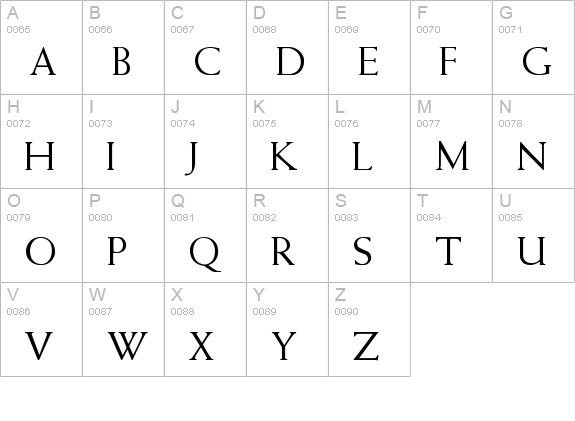
QTWeise Regular is the standard, neutral variant in the QTWeise typeface family \xE2\x80\x94 well suited to general body text, paragraphs, and standard typographic work.
QTWeise Regular is a versatile and stylish font that adds a touch of elegance to any design project. With its clean lines and balanced proportions, this font is perfect for both headings and body text. The sleek and modern look of QTWeise Regular makes it suitable for a wide range of applications, from branding and advertising to web design and print materials. What sets QTWeise Regular apart is its accessibility - it is available for free download at FontsMarket.com. This means that designers and creatives can easily access this high-quality font without having to worry about any additional costs. The freedom to use QTWeise Regular in personal and commercial projects without any restrictions makes it an invaluable resource for designers of all levels. The beauty of QTWeise Regular lies in its simplicity. Its classic yet contemporary design ensures that it can be seamlessly integrated into any design concept. Whether you're creating a logo, designing a website, or crafting a brochure, this font is sure to make a lasting impression. QTWeise Regular is a font that combines functionality with aesthetics, making it an excellent choice for any design project. Its legibility and readability make it suitable for both digital and print media, ensuring that your message is conveyed clearly and effectively. So, if you're looking for a font that is both visually appealing and easily accessible, look no further than QTWeise Regular. Download it for free at FontsMarket.com and unlock a world of possibilities for your design projects.